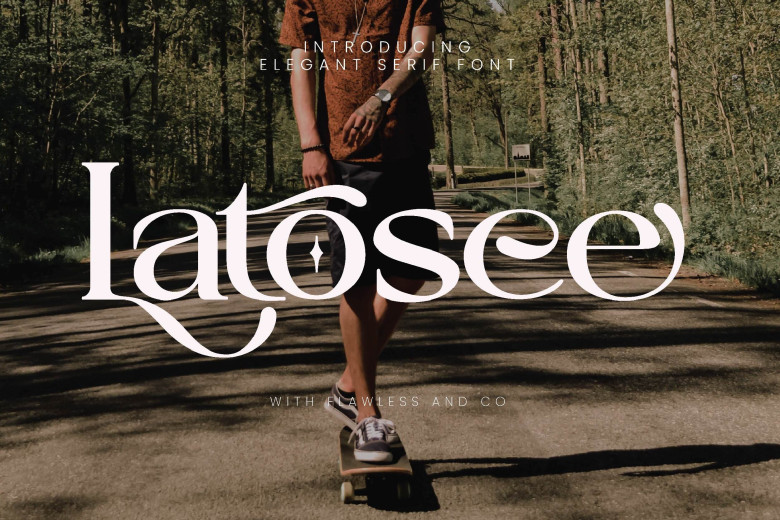
Latosce Font
Welcome “Latosce,” An Elegant Serif Font. Begin your journey towards classic elegance by using “Latosce,” an exquisite serif font that effortlessly marries timeless and modern elements. There are some connected letters as well as alternative fonts which work for all graphic designs, such as promotional materials, T-shirt business cards and logos, posters,
T-shirt designs, photography, quotes etc. Furthermore this font supports multilingual capabilities including uppercase A-Z letters as well as alternate numbers 0-9 with some punctuation marks included as well.
Latosce Serif Font